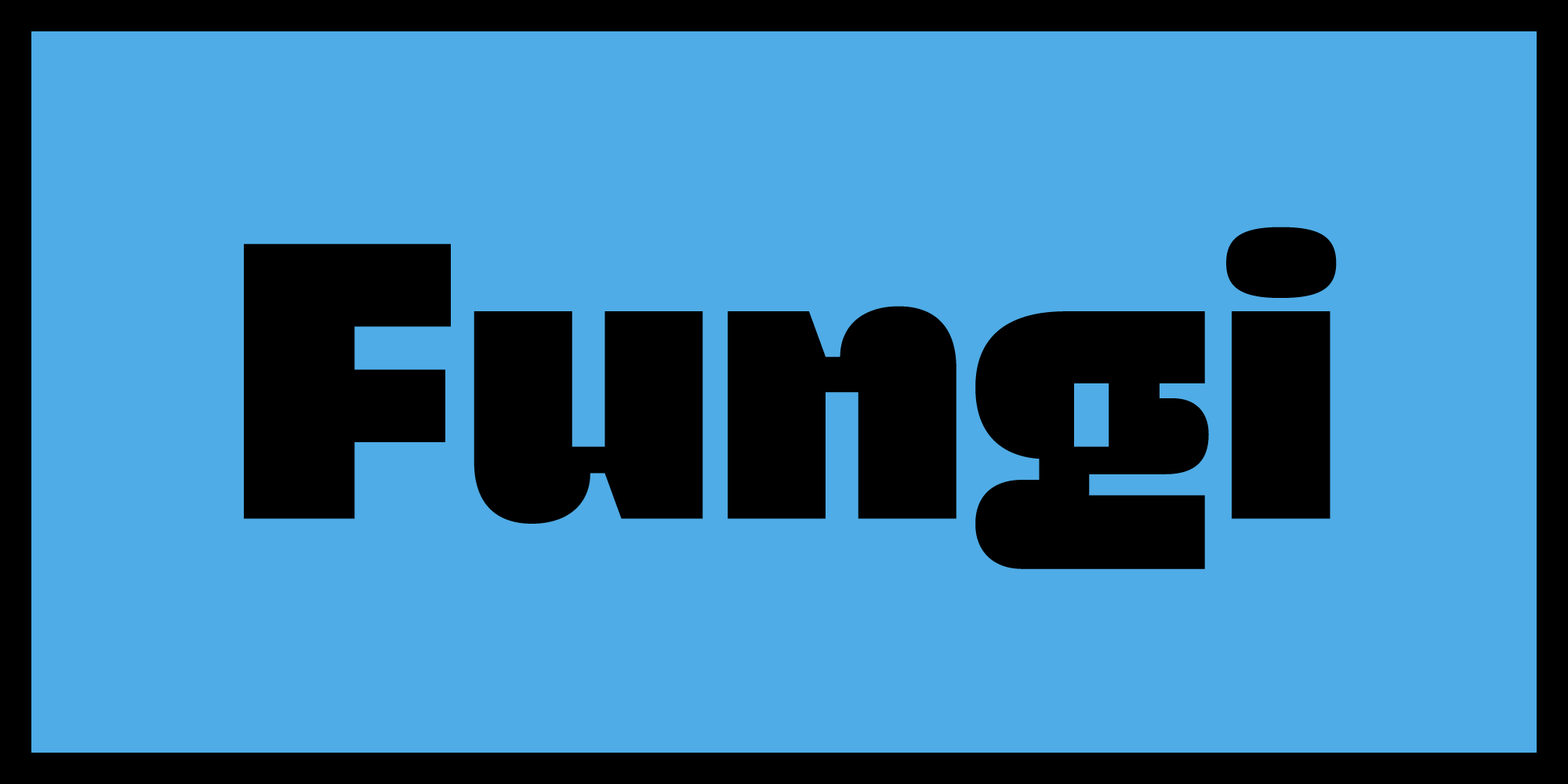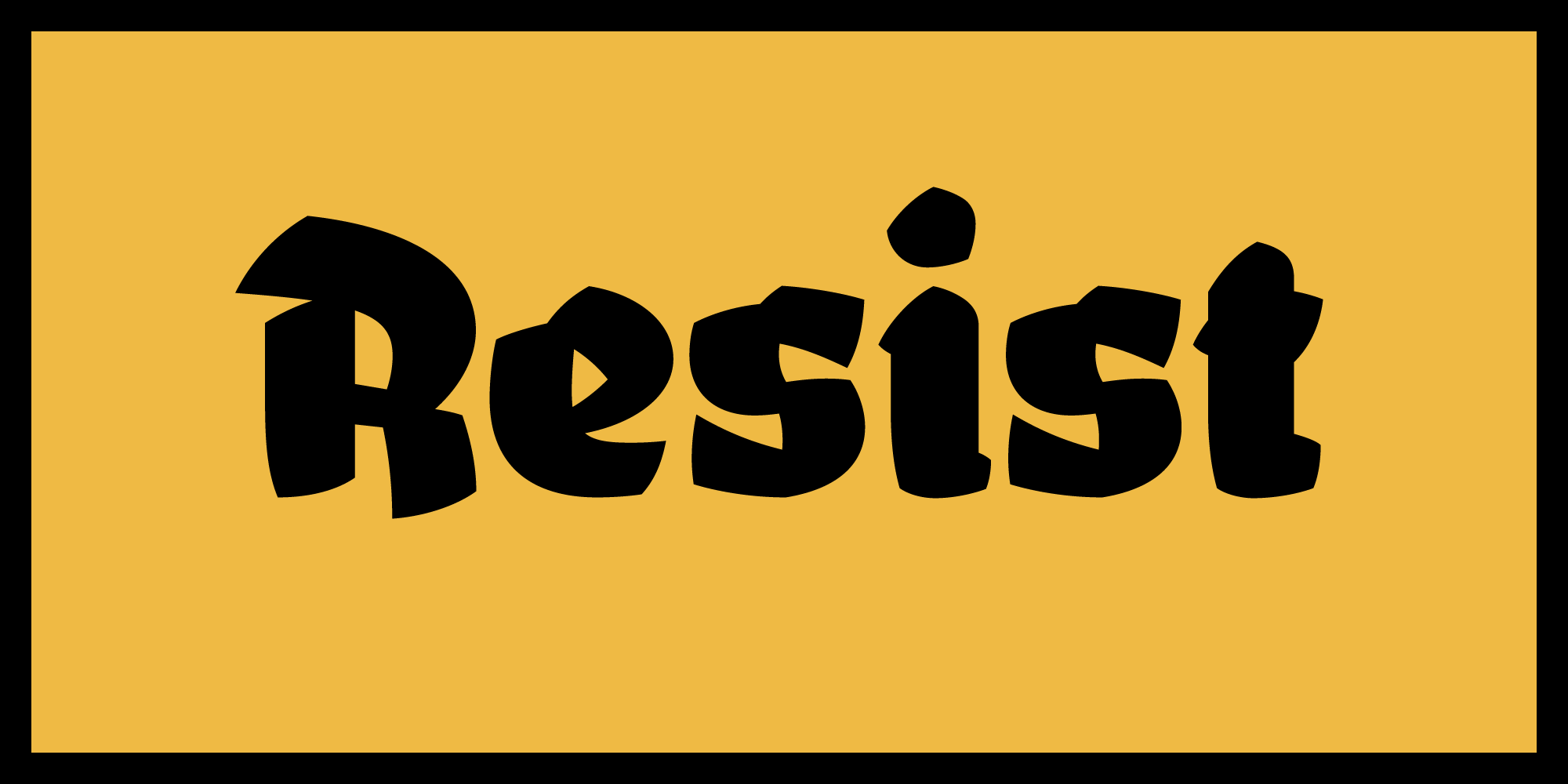
Lucas Czarnecki: If you can remember a specific moment, when and why did you become interested in type design?
Elena Schneider: Yes, I do remember that. It was at the end of my intermediate graphic design diploma, when the whole class took a trip to the Hague to visit the open day at the KABK. And yes, the type and media class blew my mind! I was already interested in typography, but I somehow never thought about this!
However, after graduation, I started working with some of my best friends in our own studio, while—on the side—I always tried to work on typeface designs. That didn’t work out very well. Firstly, I didn’t have a clue about it, and secondly there were not many resources available online back then. So, I decided that I had to go to Reading for their type design master’s program.
Also, way back when I was a child, I would watch my grandpa do calligraphy. He made gift cards and sometimes he would draw these huge price tags for the local hardware store… I loved to watch him do it. It made me think about letterforms, because he could do a range of different styles. But when he tried to teach me, I just hated it! I still can’t make myself do calligraphy. Though, I do love to look at it. I am sure that this experience triggered something.
LC: What’s the story behind your first published typeface?
ES: The first typeface I published was Eskorte. It was my graduation project from the University of Reading and was published by Rosetta in 2014. Shortly after that, Paroli was published by Gestalten fonts.
Eskorte is a serif font family with uprights and italics that both have their own different personalities. As a matter of fact, Paroli started as part of that family, too. It came along as ‘Eskorte Display’ in my graduation project. I used it as my punching bag, throwing in all the silly ideas that didn’t fit into Eskorte Text. Once I got rid of all my crazy energy, I could go back to the serious part—until I got bored and went back to the display… and so on.
Elefonts designs retail and custom fonts in close collaboration with their clients to provide a unique typographic solution.
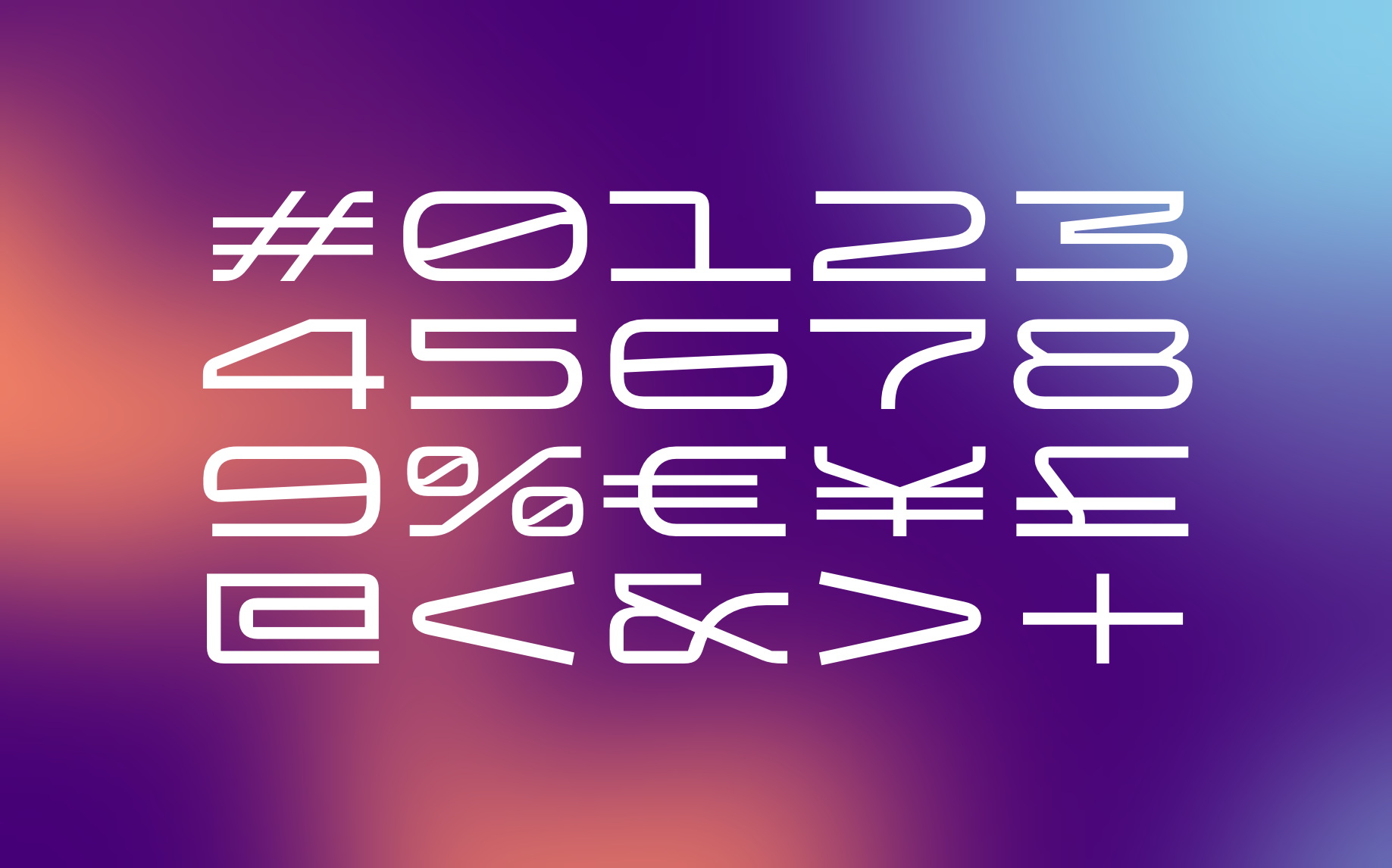
After studying visual communication in the University of Applied Sciences in Dortmund, Schneider co-founded the design studio Radau. Her fascination with typography and letterforms soon led her to move to Reading and pursue an MA in type design. She often combines her skills, like in this glyph set for German AI consultancy Merantix Momentum.
LC: How did you decide to start your own foundry?
ES: After publishing typefaces at various foundries for almost ten years, I thought it would be good to have something like a home base. But at the same time, I was a bit afraid to take care of everything on my own: maintaining my web-shop, dealing with angry customers and their lawyers, and doing all the marketing—in addition to working on new typefaces! So, I thought Type Network was exactly what I was looking for: United forces on the inside and the freedom to have my own space on the outside.
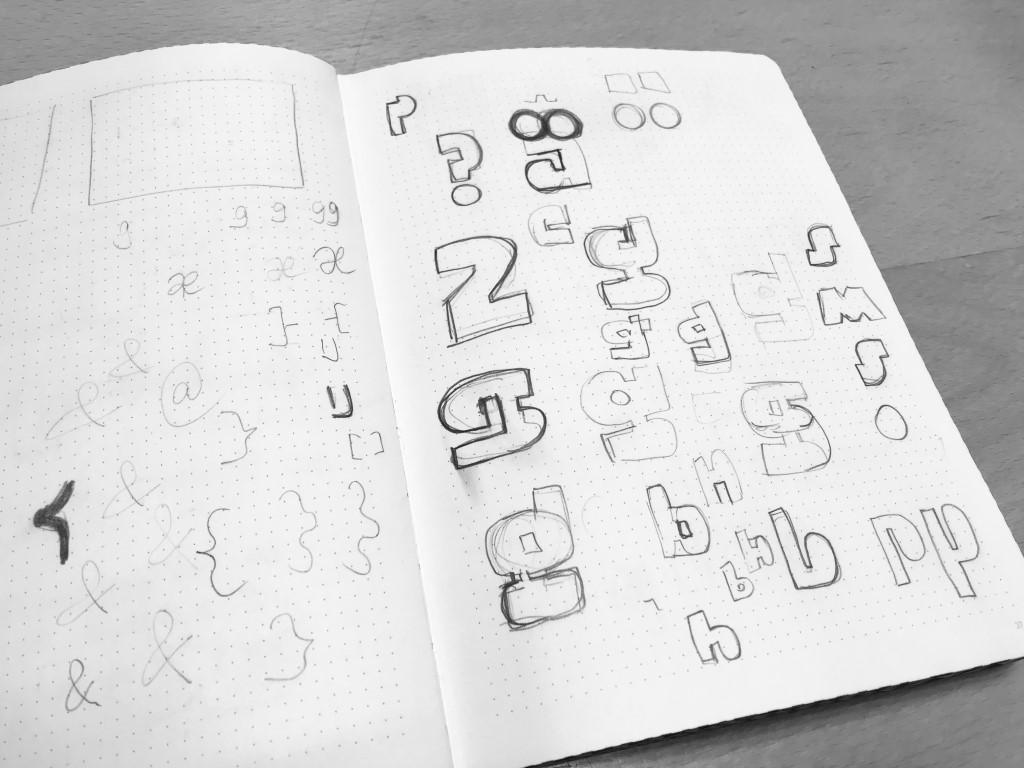
Sketches for Fillip and Mikrobe side by side in Schneider’s sketchbook demonstrate her scattershot approach to drawing letterforms: She quickly goes wherever the ideas take her.
LC: Is there anything unique or peculiar about your type design process?
ES: I don’t think I have a particularly distinctive way of designing typefaces. Like many type designers, I love the first 10% of a new project the most... the creative part. I usually do a lot of sketching before touching the vectors. My sketches are not very detailed, but they are very messy. I don’t try to keep a nice sketch book; I just bring the ideas out of my head.
With the Fillip font family, it was a little different: I did a lot of research before I started the design process, and then did some writing instead of sketching. I quickly found that I wasn’t looking for a handwritten style, but I started sketching the letterforms with the idea of handwriting in mind.
In contrast, the process for Halunke was completely different: It was more like a game or a puzzle to solve than designing a typeface. It was a real challenge to see if the original idea would work for an entire character set.
So, I think my process is always related to the idea of the project, and it’s not always the same.
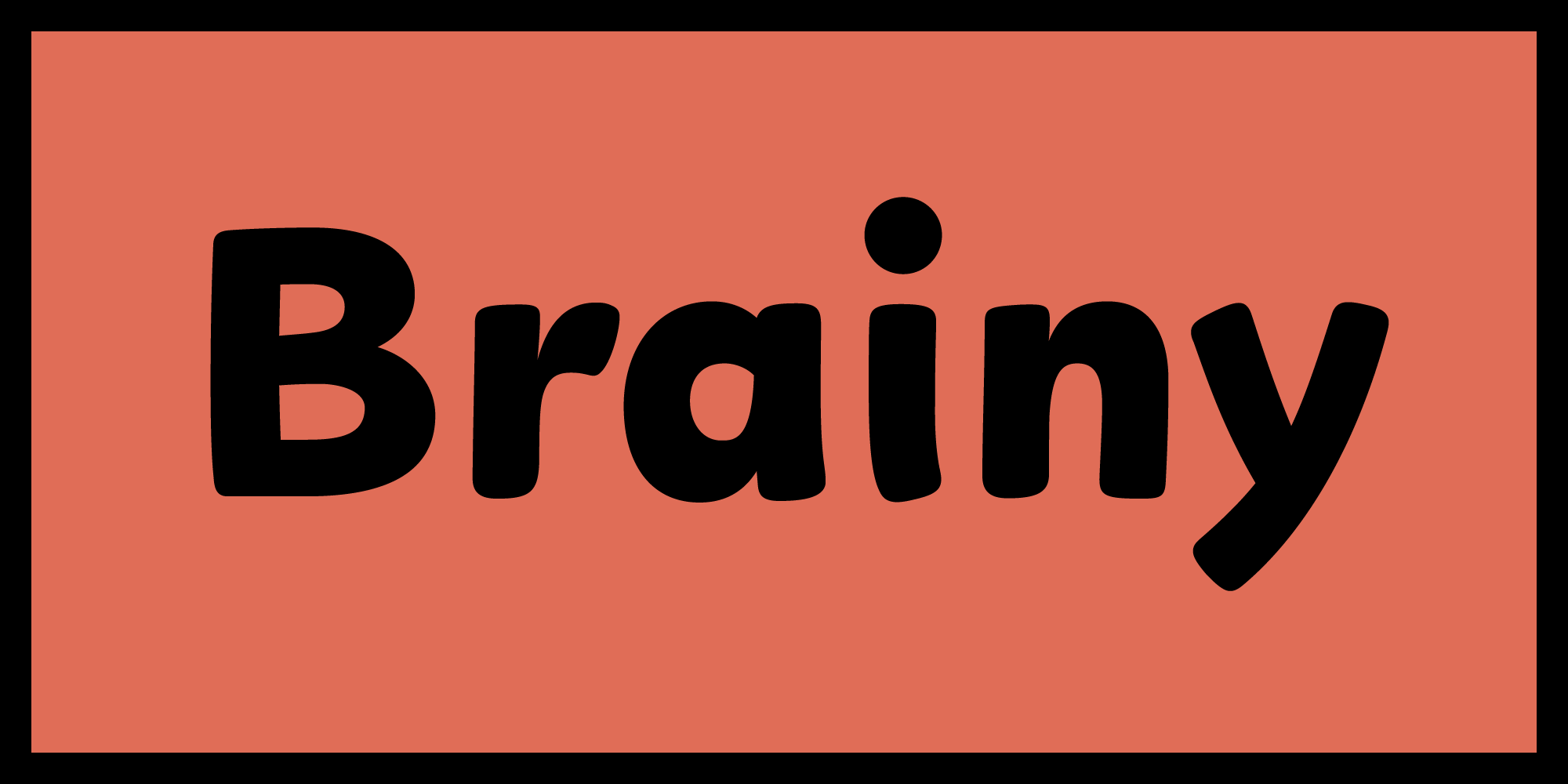
Fillip is a font family for slow reading. It helps learning to read by mimicking the movement of writing, and it is slightly imperfect without being comic. It contains no ligatures, plenty of space, rather large punctuation, and robust diacritical marks. It is friendly, welcoming, and legible. License Fillip from TN.
LC: Your designs feature a wide variety of styles, and you have released typefaces in several scripts. Where do you find your major sources of inspiration?
ES: Inspiration just comes, and I usually forget what triggered it. For me, a project works best when the concept of using it is inspiring, not the letterform itself. As with Fillip, the initial inspiration was to design a typeface that would be less confusing for beginning readers. Only then did I start thinking about the letterforms. For Mikrobe, I wanted to create a typeface for book covers with a width axis to make the type fit any layout. So, it needed those robust, geometric curves.
LC: What’s next for you?
ES: There are more typefaces waiting in line to be launched into the Type Network library. I will just keep going! Finishing up old projects and creating new ones.